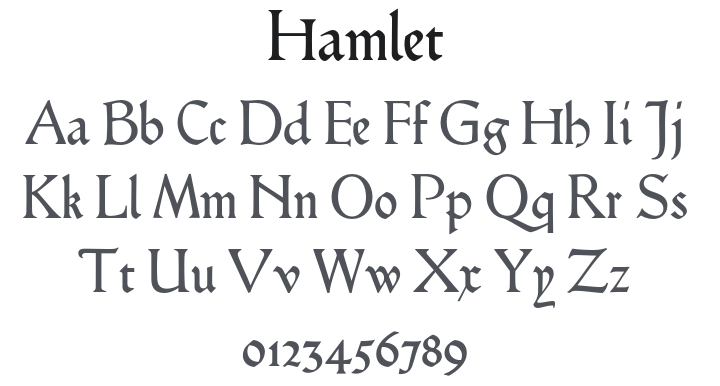
Hamlet Font Family
About Hamlet
Hamlet (also named Kessler-Blackletter), designed by Edward Johnston, cut in three sizes (10, 12 and 18 pt) by Edward Prince for William Shakespeare’s Hamlet. Published by Harry Kessler’s Cranach Press in Weimar in 1929. The type is based on the Durandus for the lowercases, and Sweynheim & Pannartz’ Subiaco type for the capitals. The type was used for trials in other books, none of which were completed. Type design workshop at Bauhaus Universität Weimar and Anna Amalia Bibliothek Weimar, January 2018.